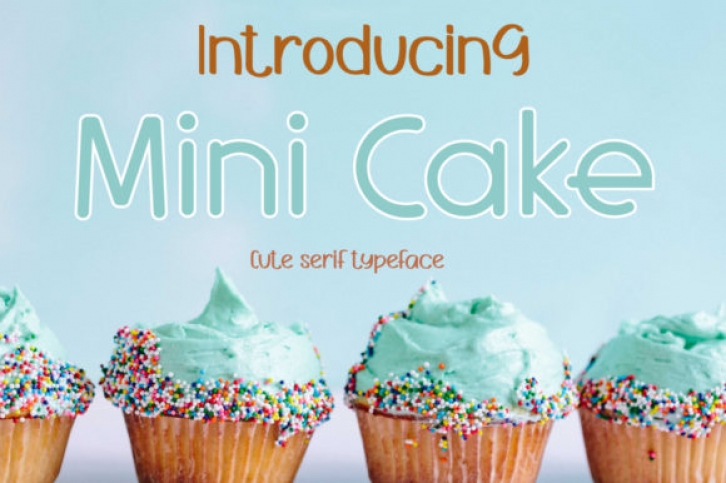
Mini Cake is a stylish display combined with serif font, with an incredibly friendly feel. Designed to become a true favorite, this font will be the ideal match in both formal and non-formal contexts.